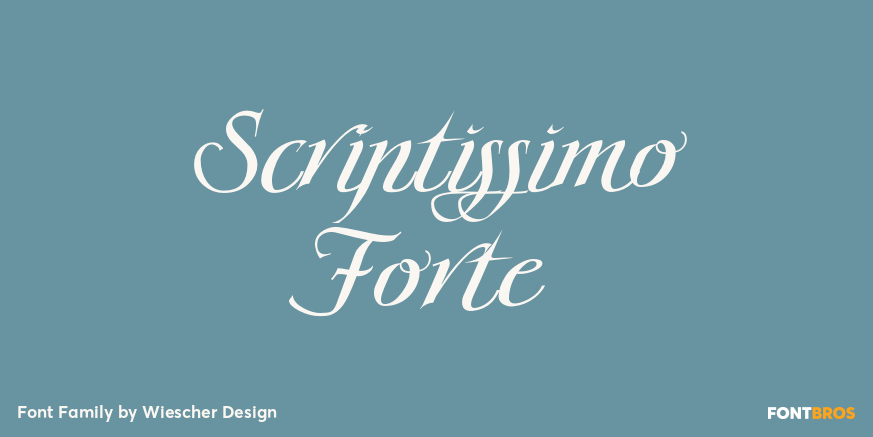
Scriptissimo Forte
About Scriptissimo Forte
Scriptissimo-Forte is the bold version of Scriptissimo. When using the normal cut of Scriptissimo I sometimes had the feeling that I could well use a bolder cut to make a bigger impression, so I simply made that cut for myself. I think you can use it…